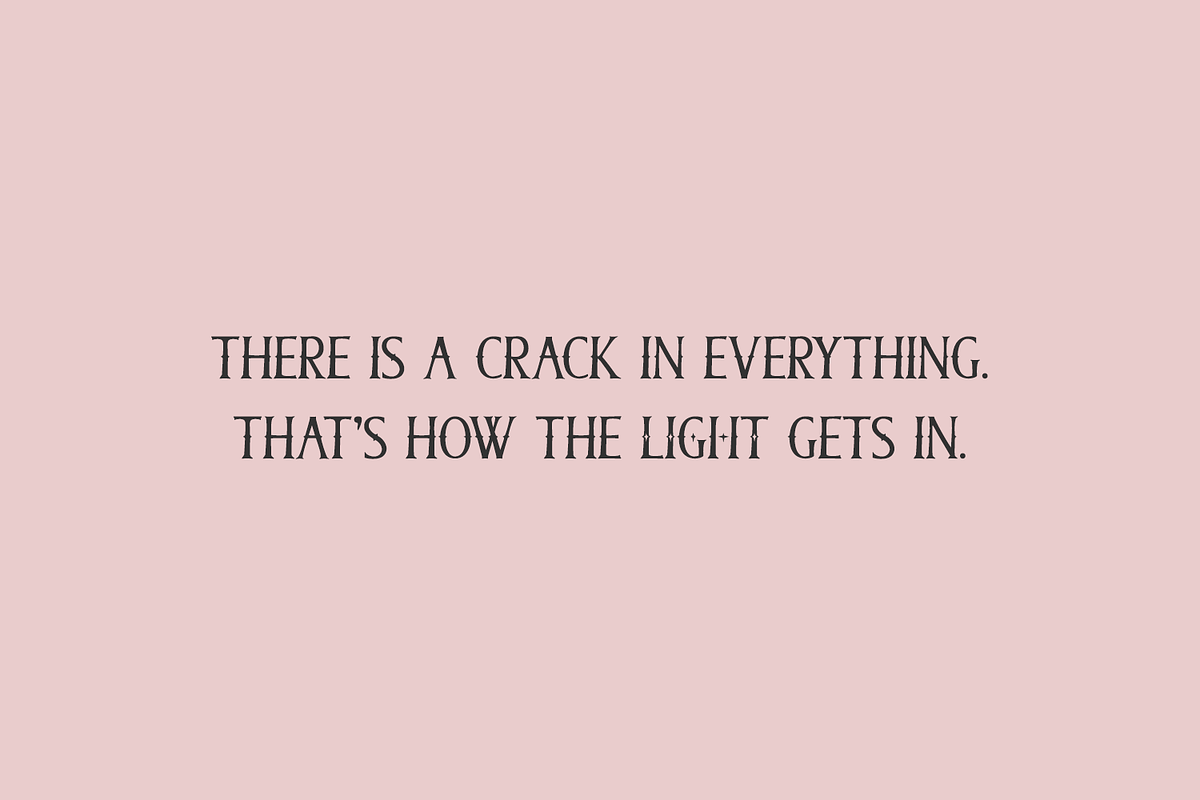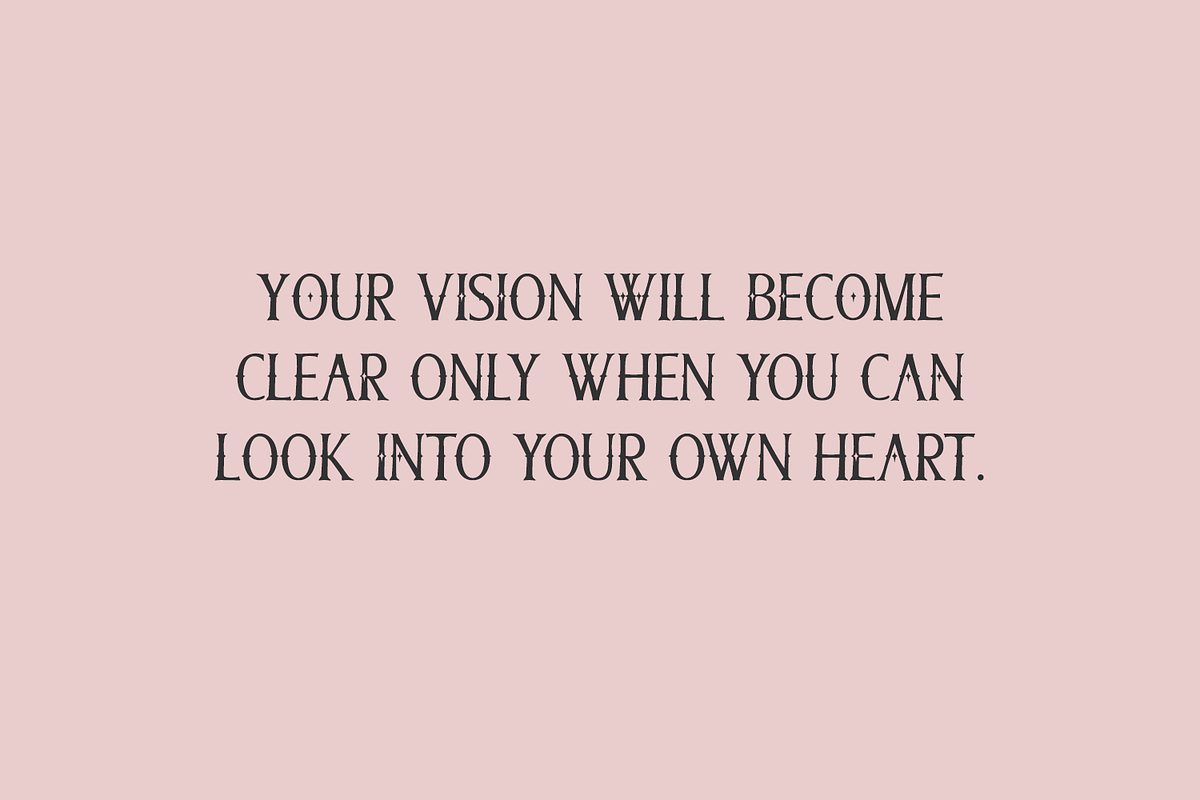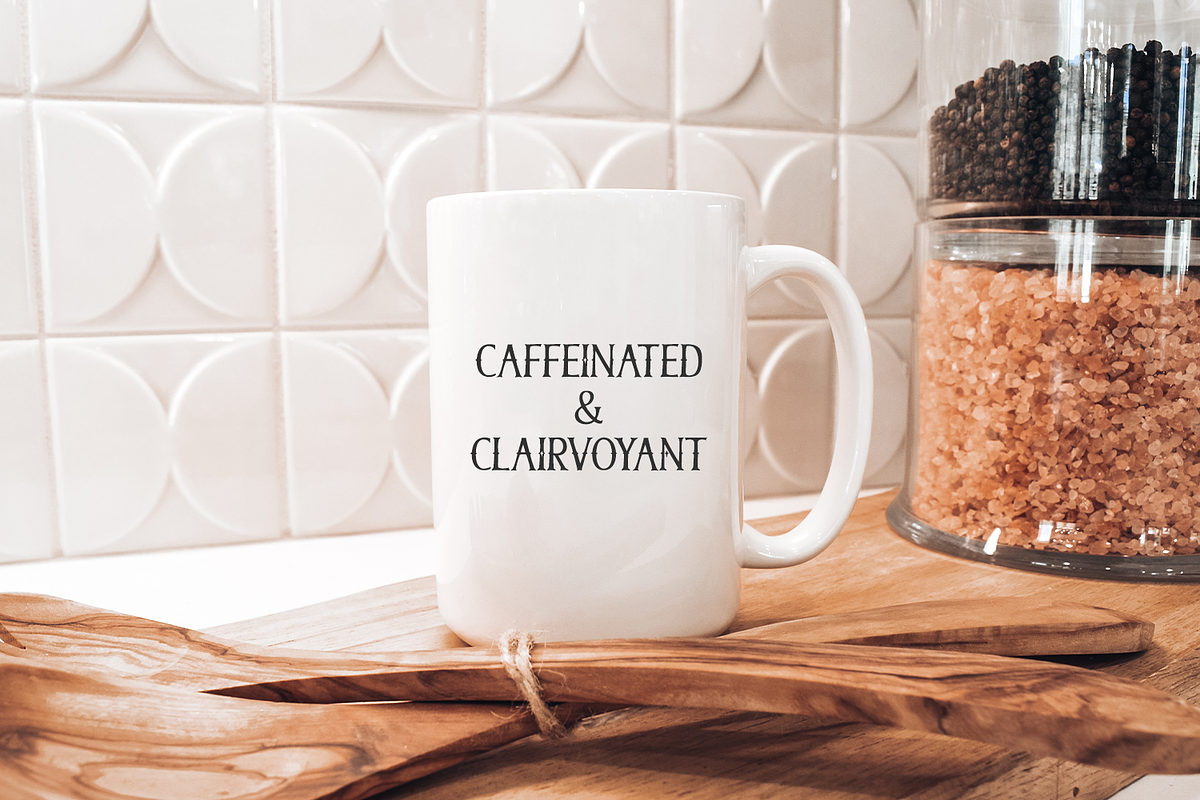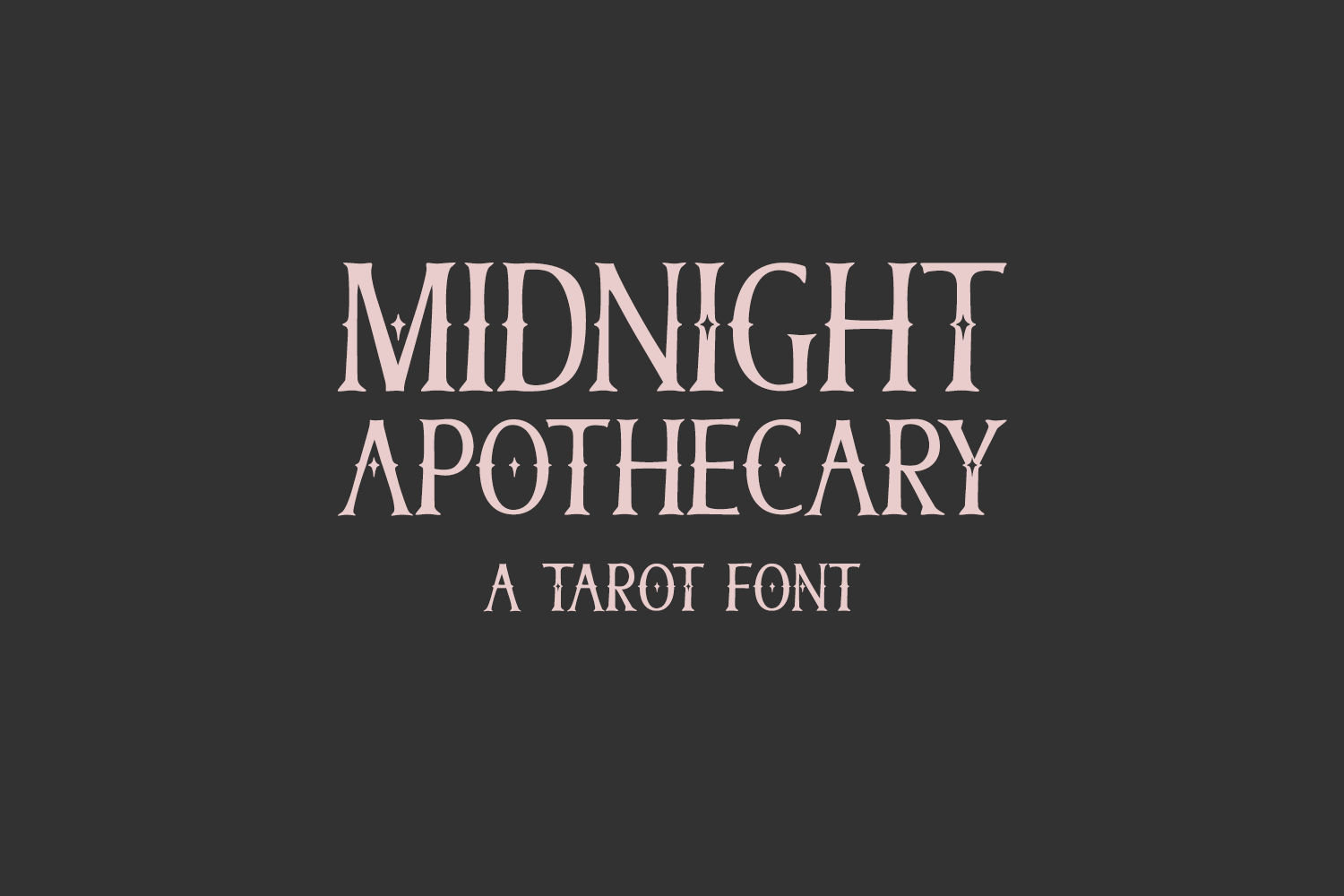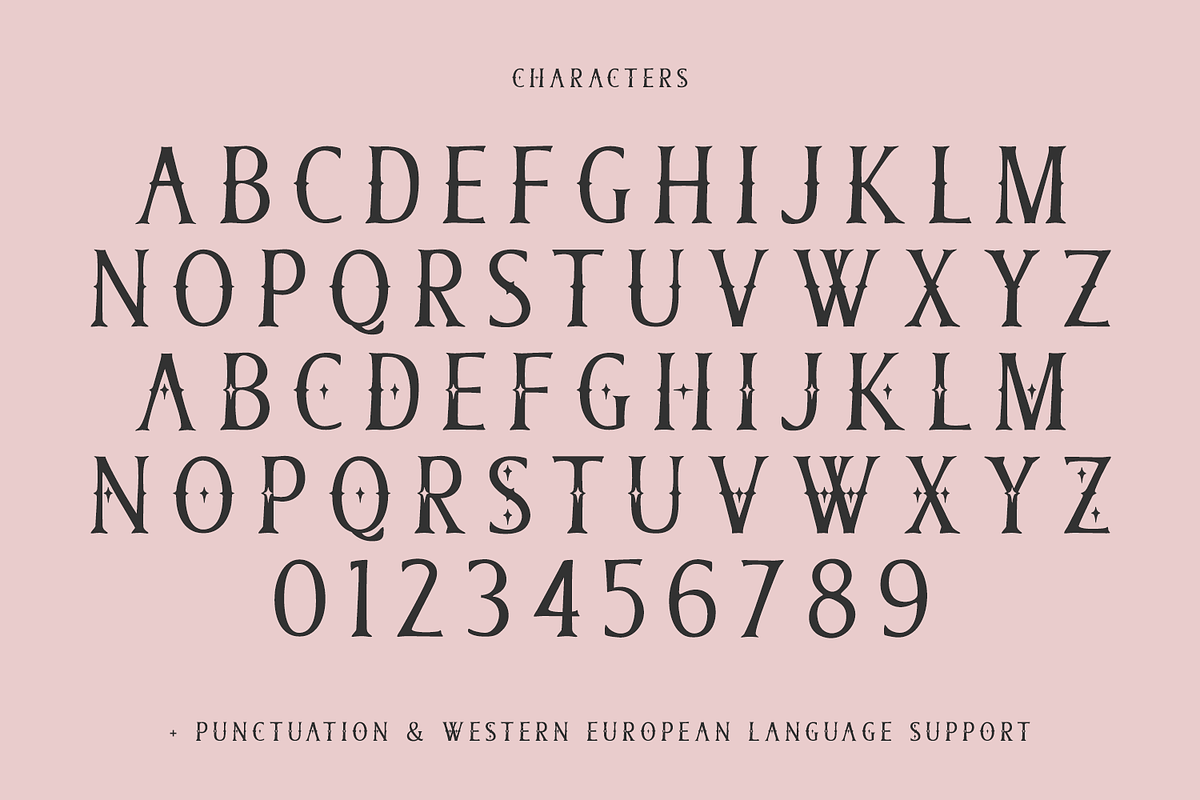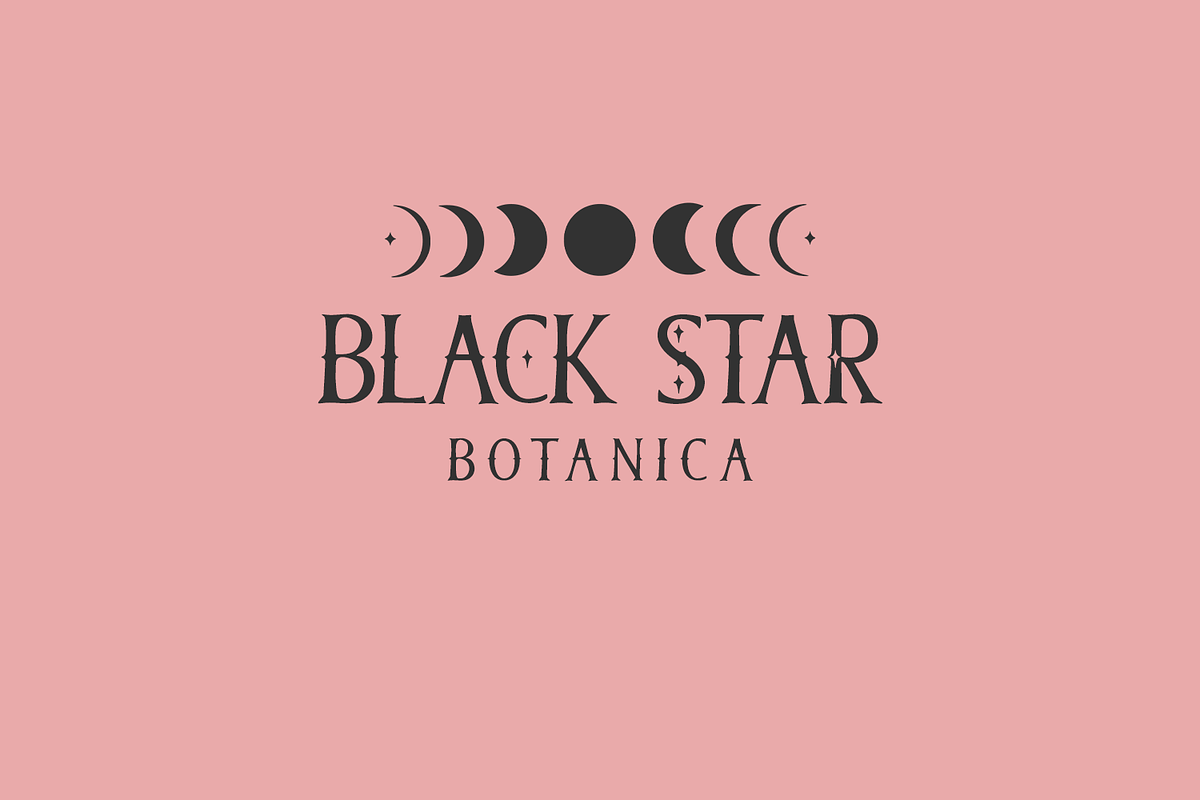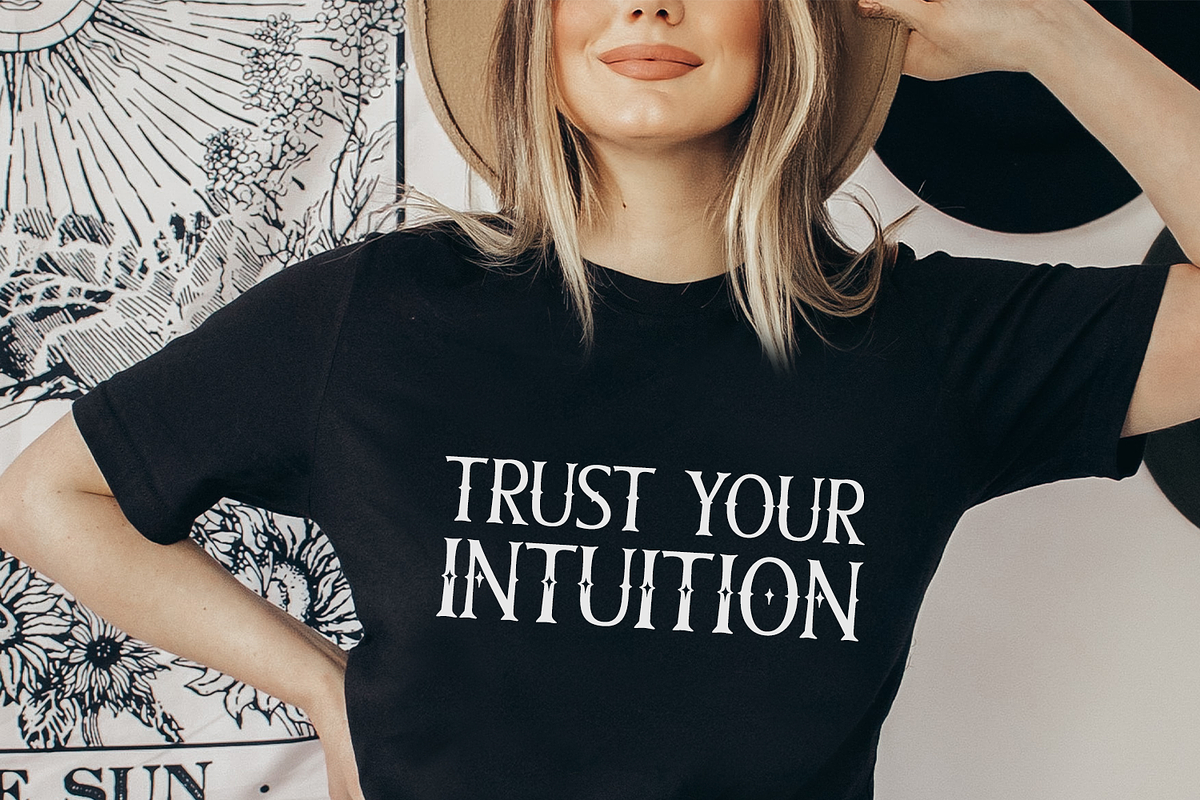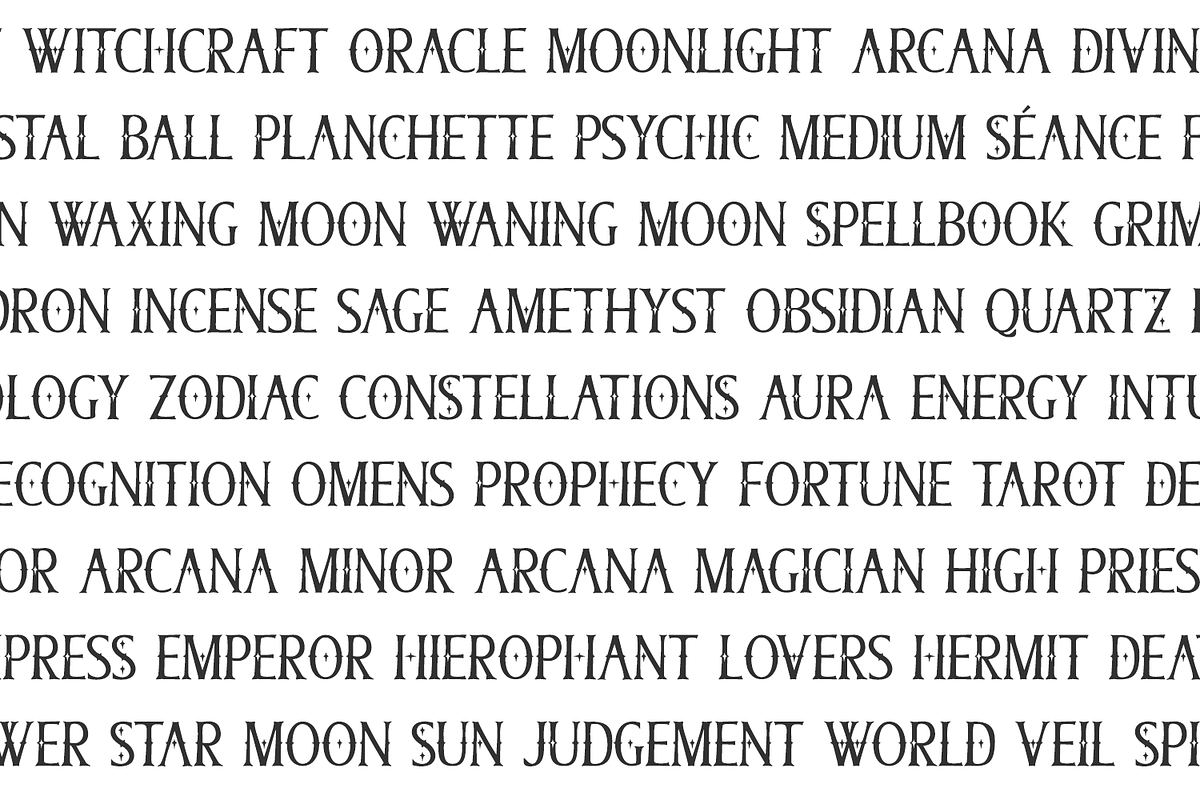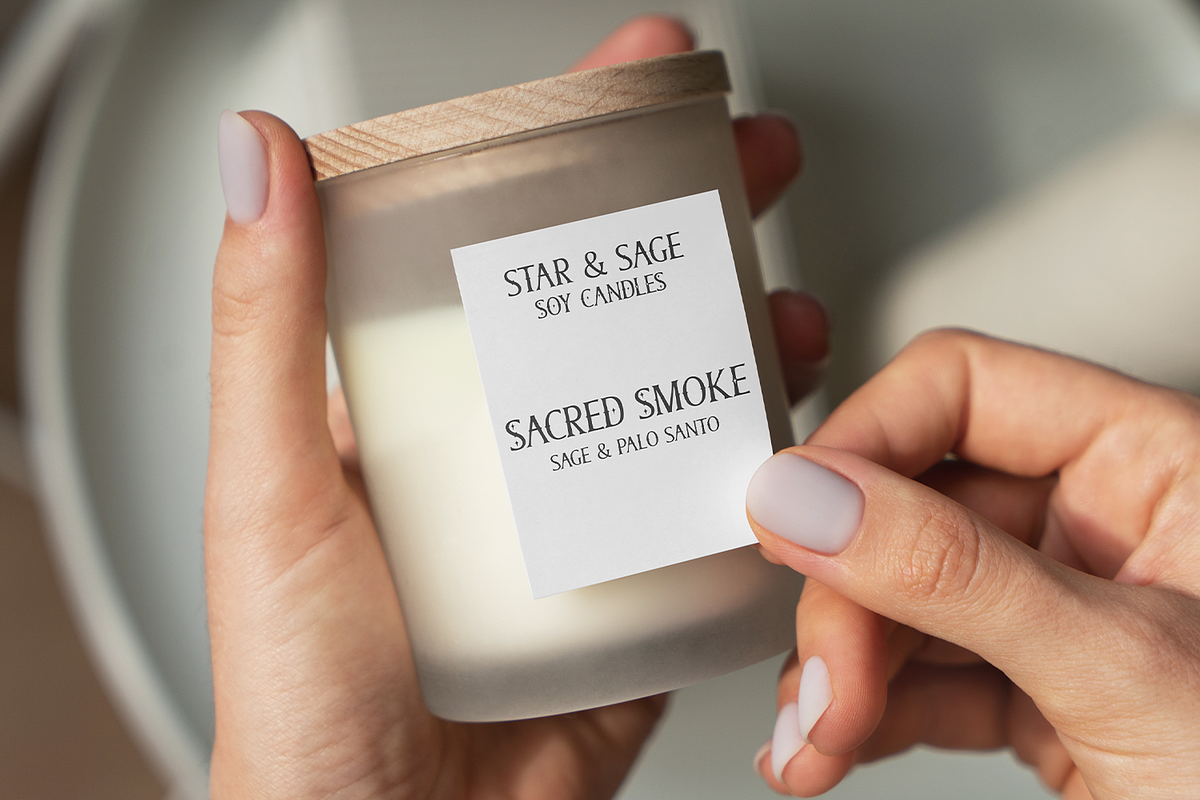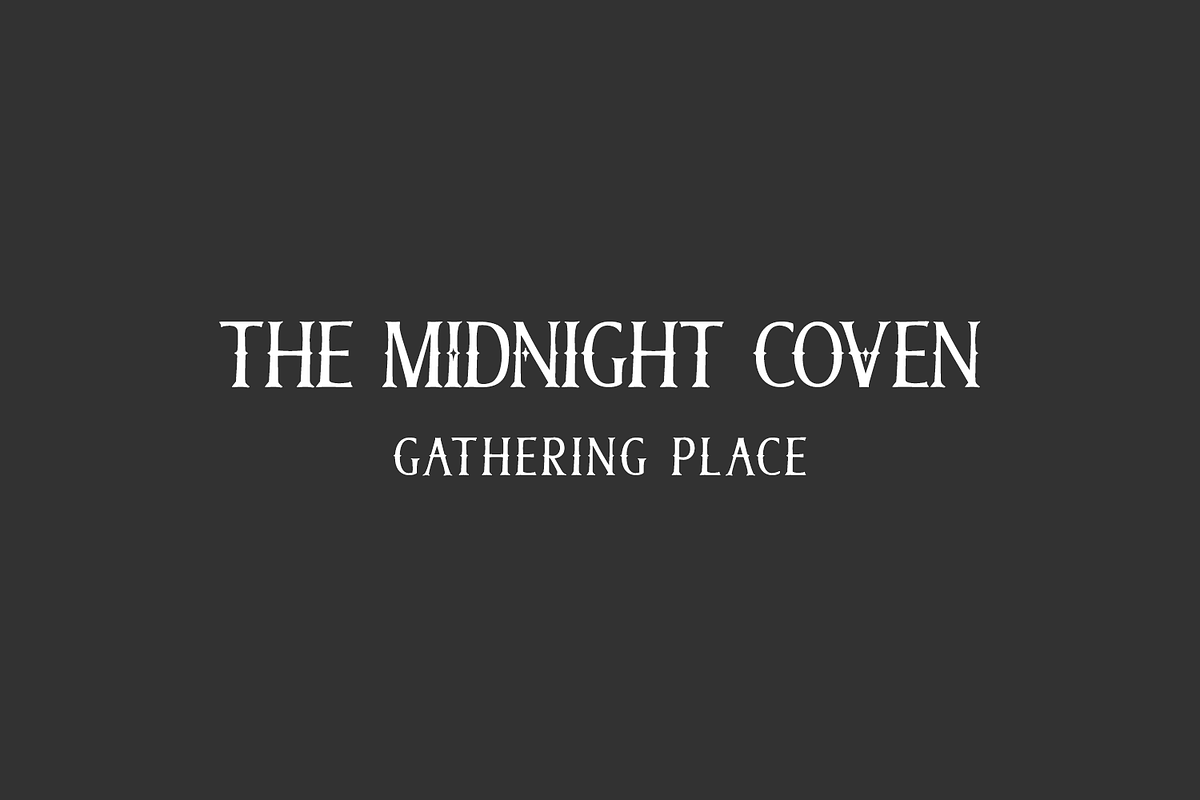
Midnight Apothecary Serif Font
Midnight Apothecary is an all-caps vintage-inspired font with small spurs that give it the look of an antique apothecary label or old-fashioned sign. Its lowercase slots contain alternate uppercase characters decorated with tiny stars, allowing you to add magical details selectively wherever you want them. The combination of vintage typography and optional star accents makes it ideal for occult shops, tarot readers, psychic branding, candle labels, witchy apparel, spell-inspired designs, and Halloween crafts. Its versatility also makes it a strong choice for logos, product packaging, labels, and other designs that need an old-world magical aesthetic completely unrelated to Halloween at all!
Midnight Apothecary Serif includes:
- full upper + lowercase characters
- numbers + punctuation
- Western European language support - English, French, Spanish, Portuguese (Brazil), Portuguese (Portugal), Italian, German (Germany), German (Austria), Dutch, Danish, Swedish, Norwegian (Bokmål and Nynorsk), Finnish, Icelandic, Irish, Welsh